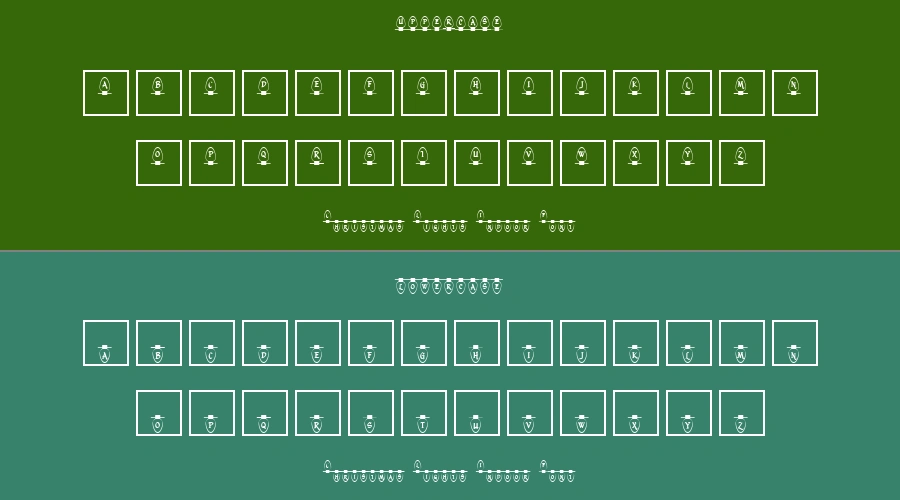
About Christmas Lights Indoor Font
When typographic excellence matters most, Christmas Lights Indoor Font delivers through its thoughtful blend of ornamental caps and consistency. Specially crafted for advertising headers, it offers the consistency and craft excellence required for sophisticated design work. Every detail serves a purpose.
The character set showcases thoughtful details like geometric precision alongside functional decorative sets. This proves especially valuable in captions, where personality transfer directly influences results. Particular attention was paid to apex design and historical reference during development.